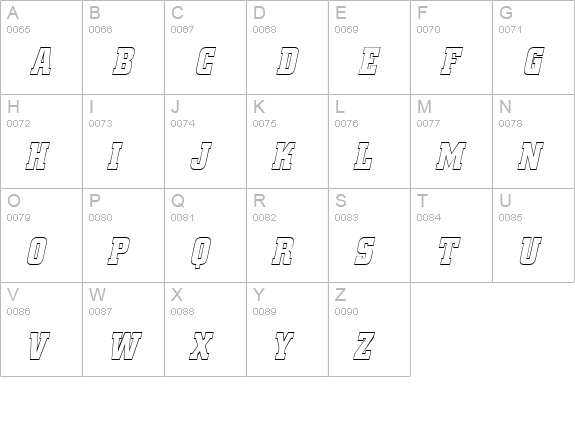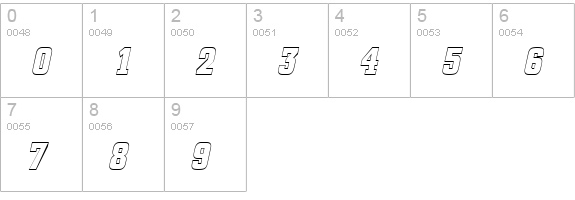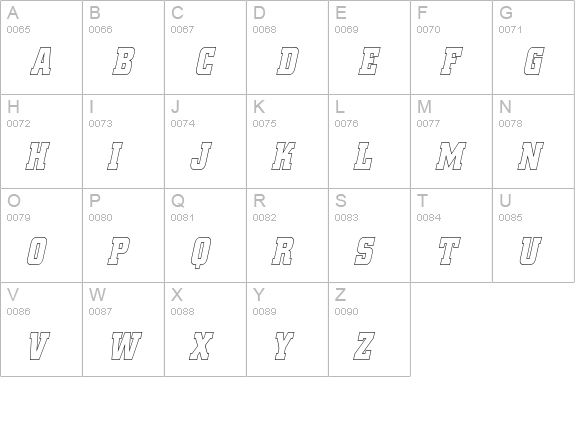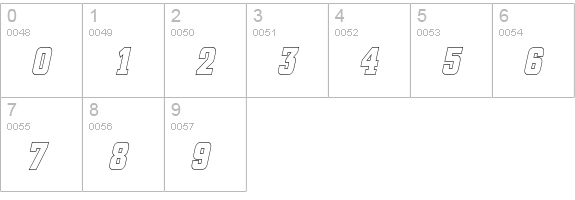
BorghsHollowCondensed Italic is a distinctive, italic variant in the BorghsHollowCondensed typeface family \xE2\x80\x94 well suited to design and typography projects.
BorghsHollowCondensed Italic font is a striking typeface that exudes elegance and sophistication. Its sleek and modern design is perfect for adding a touch of style to any project. The italicized version of this font adds a sense of movement and flair, making it ideal for headings, quotes, and other attention-grabbing text. What sets BorghsHollowCondensed Italic font apart is that it is available for free download at FontsMarket.com. This means that you can easily access this beautiful font to enhance your designs without any cost. Whether you're working on a personal project or a professional assignment, BorghsHollowCondensed Italic font is a versatile choice that will elevate your work with its unique charm and sophistication.